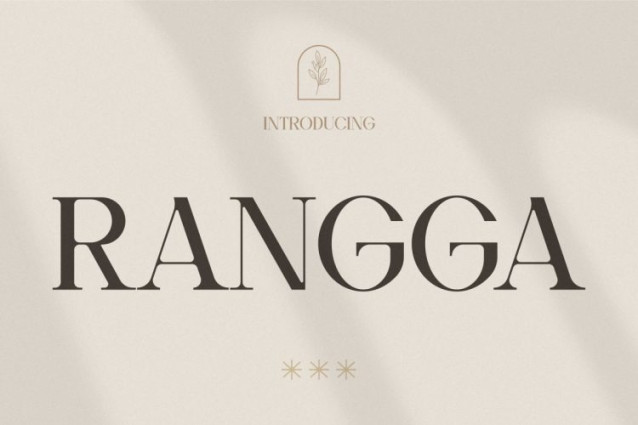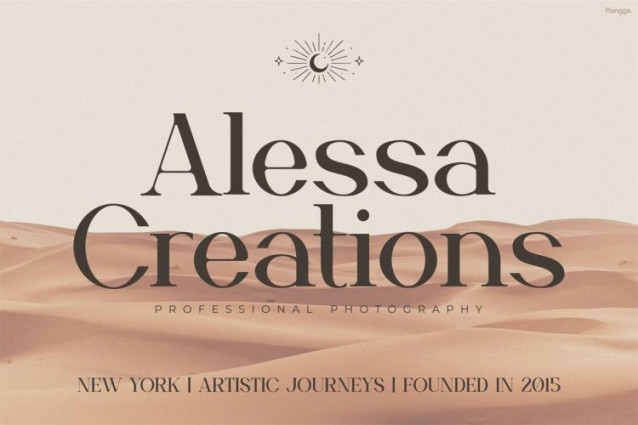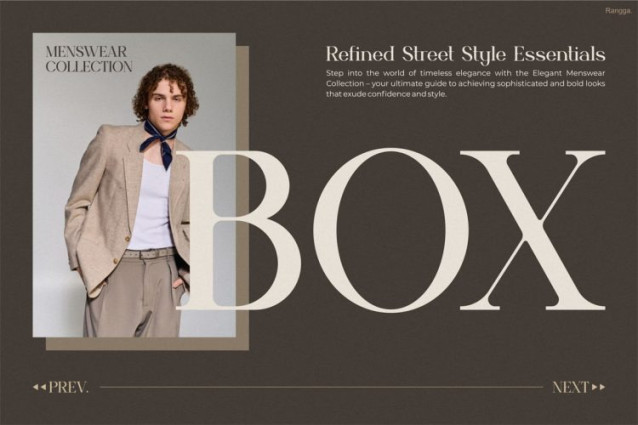
Rangga Typeface
Rangga Typeface is a refined modern serif font designed to deliver elegance, confidence, and premium visual impact. From the first glance, this font feels sophisticated and professional, making it instantly appealing for high-end design projects. Its uniqueness lies in the balance between classic serif elegance and modern clarity, resulting in letterforms that feel timeless yet fresh. Moreover, the smooth curves and sharp details create a graceful rhythm that enhances visual storytelling. At the same time, the font remains highly readable, which makes it functional across both digital and print applications. As shown in the preview images, Rangga performs beautifully in luxury branding, fashion editorials, interior design layouts, product packaging, and elegant promotional materials. Therefore, this font becomes a powerful choice for creators who want aesthetics and function to work seamlessly together.
The preview visuals highlight its versatility across fashion campaigns, luxury home decor branding, wedding invitations, lifestyle products, and boutique identities. Moreover, Rangga adapts smoothly to logos, packaging, website headers, Instagram posts, and editorial layouts. Because of its timeless construction, the font works well for both modern and classic concepts. As a result, designers can rely on Instagram Font Rangga to deliver consistent elegance across multiple platforms and formats.